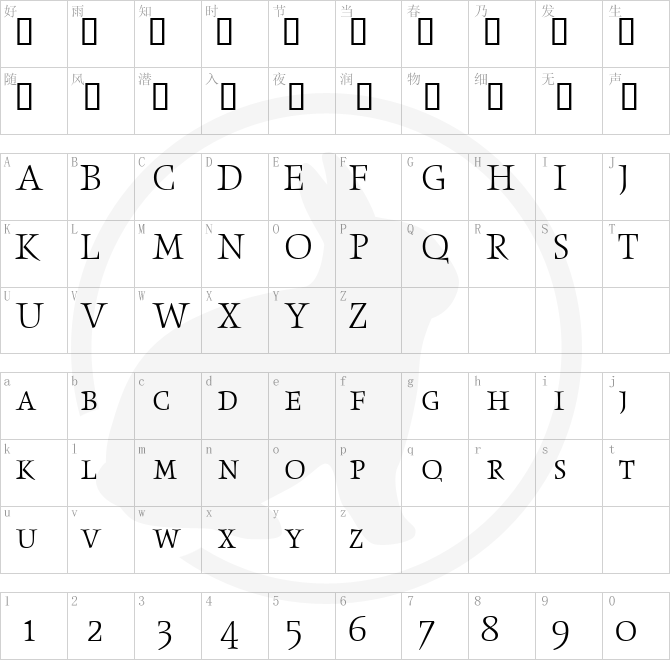
ObeliskLtSCITC-TT.ttf is a very beautiful artistic font, ObeliskLtSCITC-TT.ttf is widely used in the design and printing of various books and pictures,ObeliskLtSCITC-TT.ttf has a strong visual impact,ObeliskLtSCITC-TT.ttf is a commonly used font in newspapers, magazines and books, and is used in posters, e-commerce Poster design, store design, logo design, font design and other fields.ObeliskLtSCITC-TT.